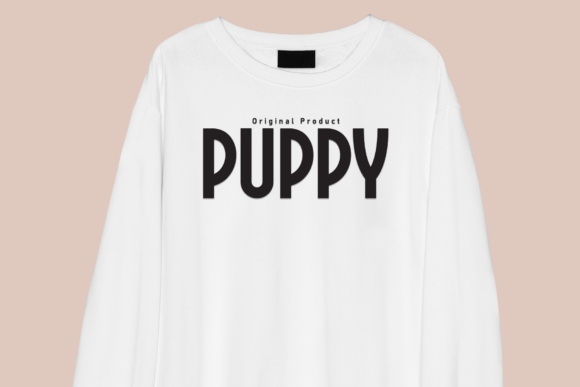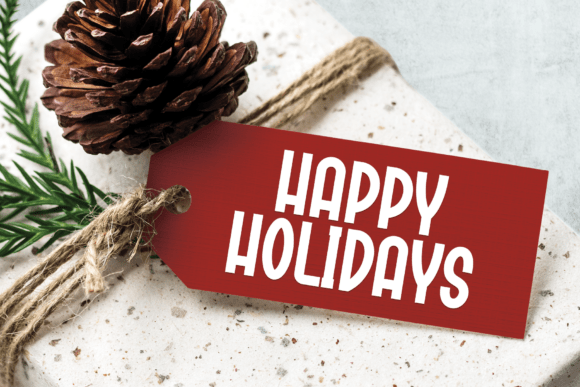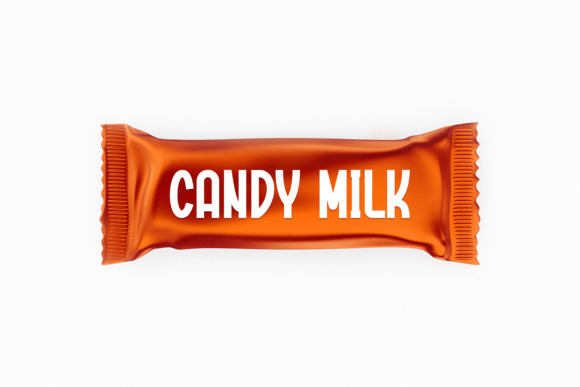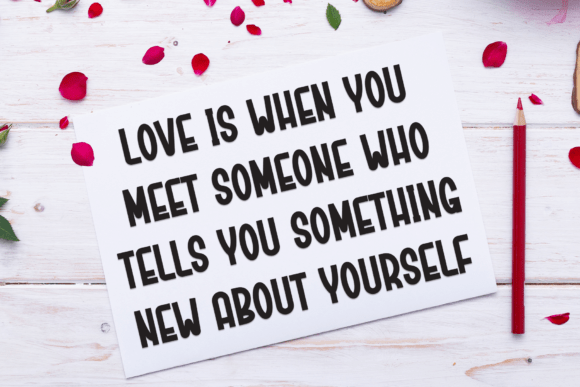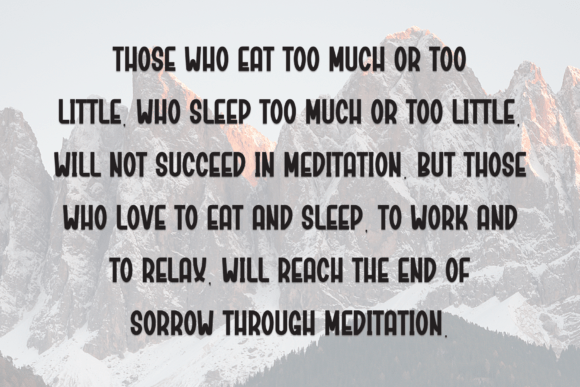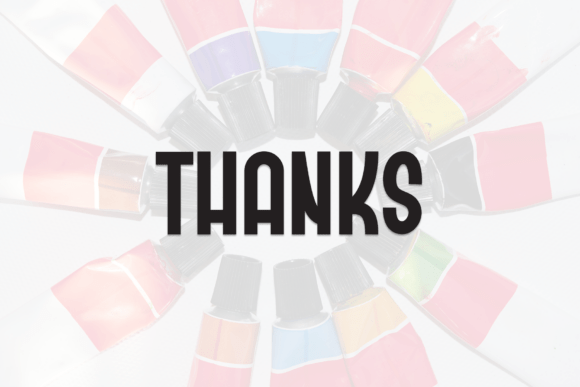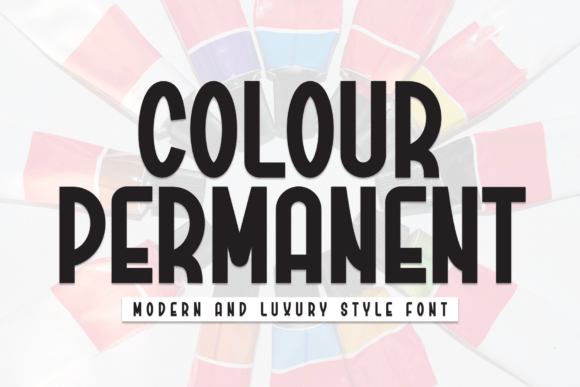
Introducing Colour Permanent Font: The Ultimate Modern Luxury Typeface
In the world of typography, a font can make or break a design. When it comes to making a statement, Colour Permanent font is the perfect choice. This bold, chunky, and undeniably “modern luxury” typeface draws inspiration from the thick strokes of a permanent marker or a paint tube, making it all about impact and visibility.
The Design Behind Colour Permanent
The Colour Permanent font features heavy, rounded weights that feel substantial and dependable. This makes it a fantastic choice for headlines that need to pop against busy backgrounds. The font’s design is characterized by clean silhouettes and balanced proportions, allowing it to feel sophisticated even in its heaviness. The “luxury” feel of Colour Permanent comes from its unique blend of boldness and elegance.
Perfect for High-Impact Designs
The Colour Permanent typeface excels in environments where boldness is required. It’s perfect for:
- Bold packaging for art supplies: The font’s chunky design makes it ideal for packaging that needs to stand out on store shelves.
- High-impact advertising: Colour Permanent font is designed to grab attention, making it perfect for ads that need to make a lasting impression.
- Modern apparel branding: The font’s modern luxury feel makes it a great choice for fashion brands that want to convey a sense of sophistication.
Adding Authority and Sophistication to Your Design
Use the Colour Permanent font for a website header to create an instant sense of authority. The font’s bold design demands attention and conveys a sense of confidence. Alternatively, use it on a book cover to ensure it stands out on a shelf. The font’s clean silhouettes and balanced proportions make it perfect for designs that require a touch of sophistication.
Pairing Suggestions
Colour Permanent font pairs exceptionally well with thin, airy sans serifs, creating a dynamic contrast that is pleasing to the eye. This contrast adds visual interest to your design and creates a beautiful harmony of boldness and elegance.
Why Choose Colour Permanent Font?
This font is perfect for designers who want to:
- Create a lasting impression: Colour Permanent font is designed to grab attention and make a statement.
- Add a touch of luxury to their design: The font’s modern luxury feel makes it perfect for designs that require a sense of sophistication.
- Convey confidence and authority: The font’s bold design demands attention and conveys a sense of confidence.
In conclusion, Colour Permanent font is the ultimate modern luxury typeface for designers who want to make a statement. Its bold, chunky design makes it perfect for high-impact designs, while its clean silhouettes and balanced proportions add a touch of sophistication. Whether you’re designing a website header, book cover, or packaging, Colour Permanent font is the perfect choice.